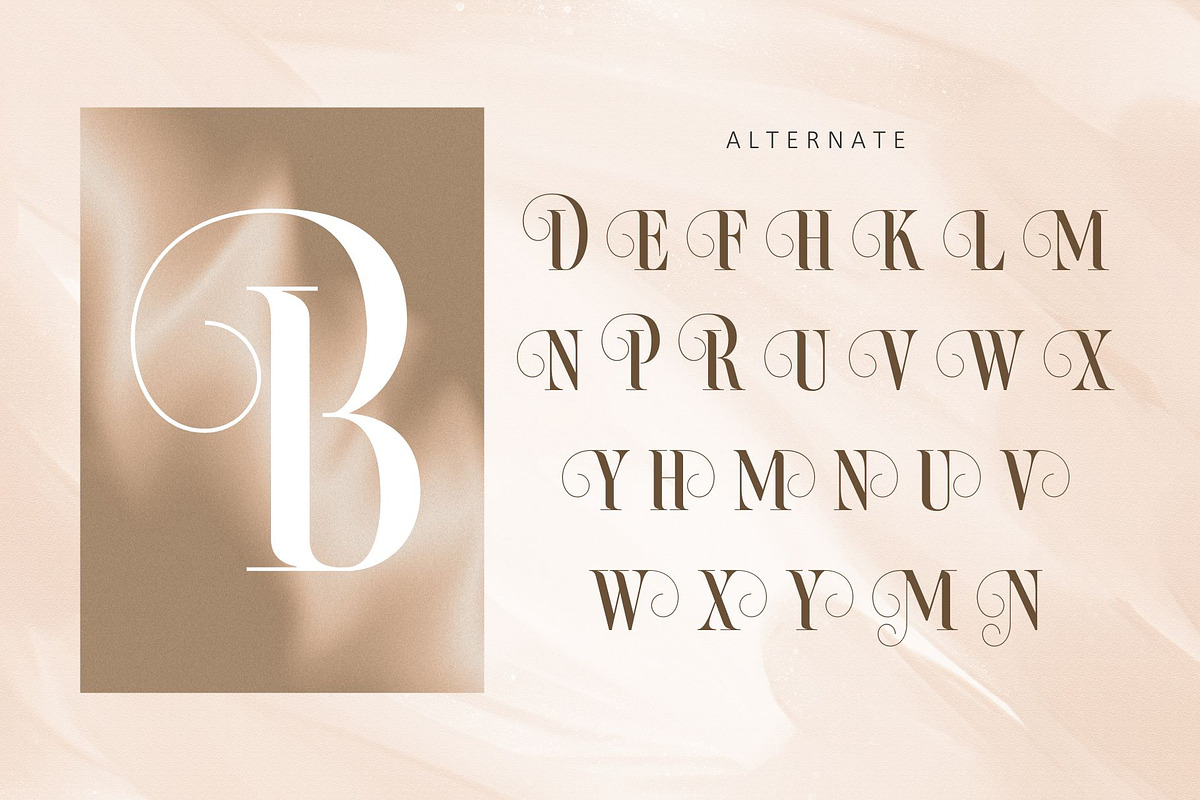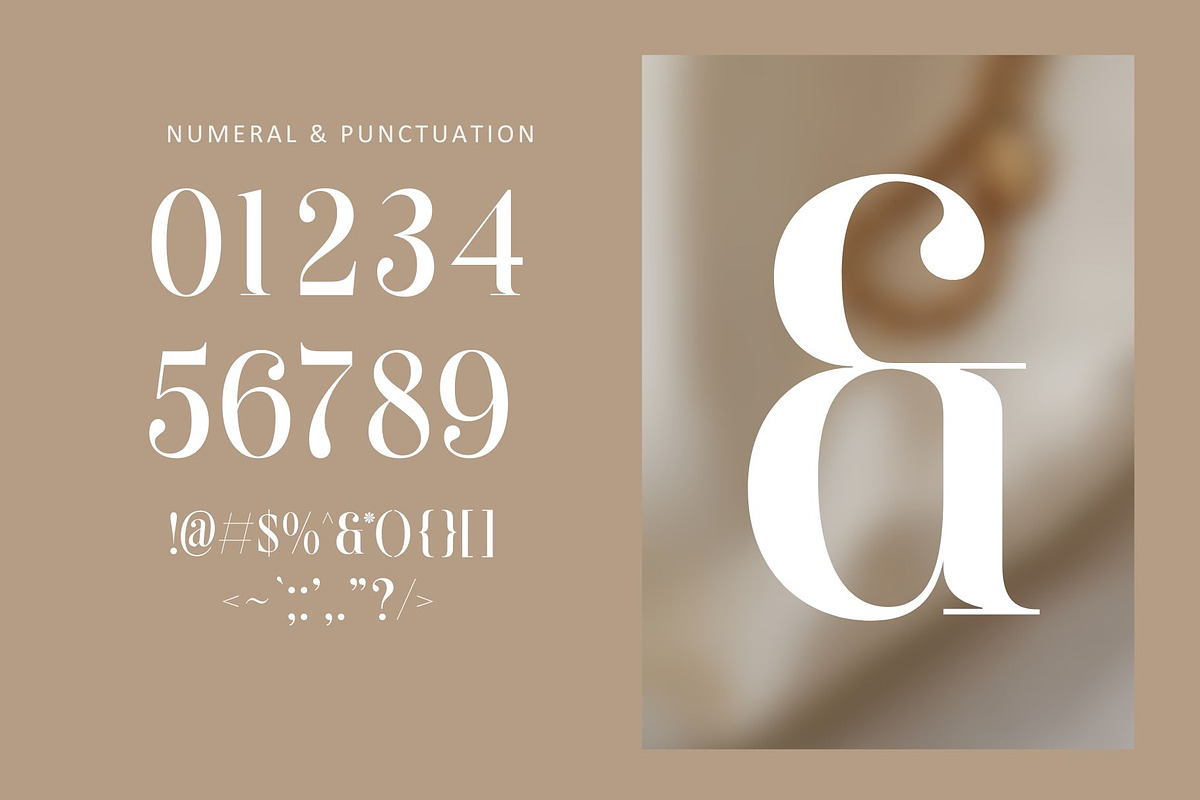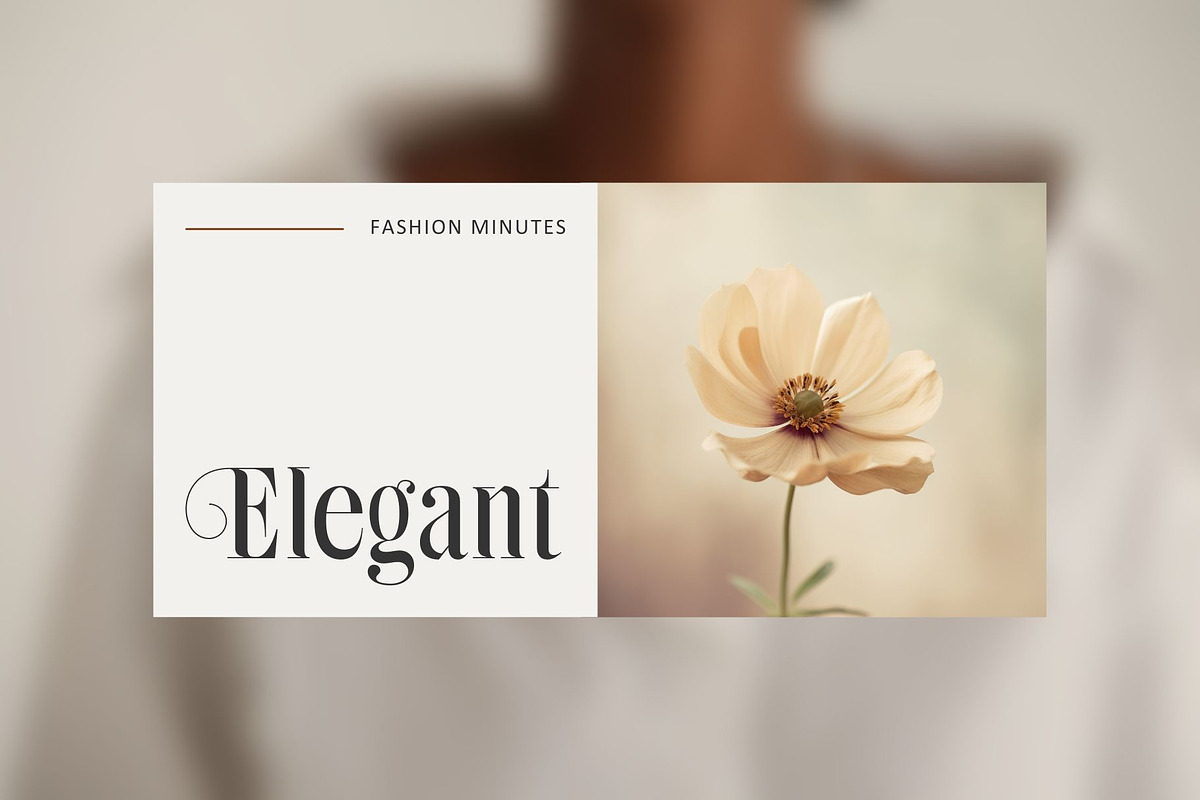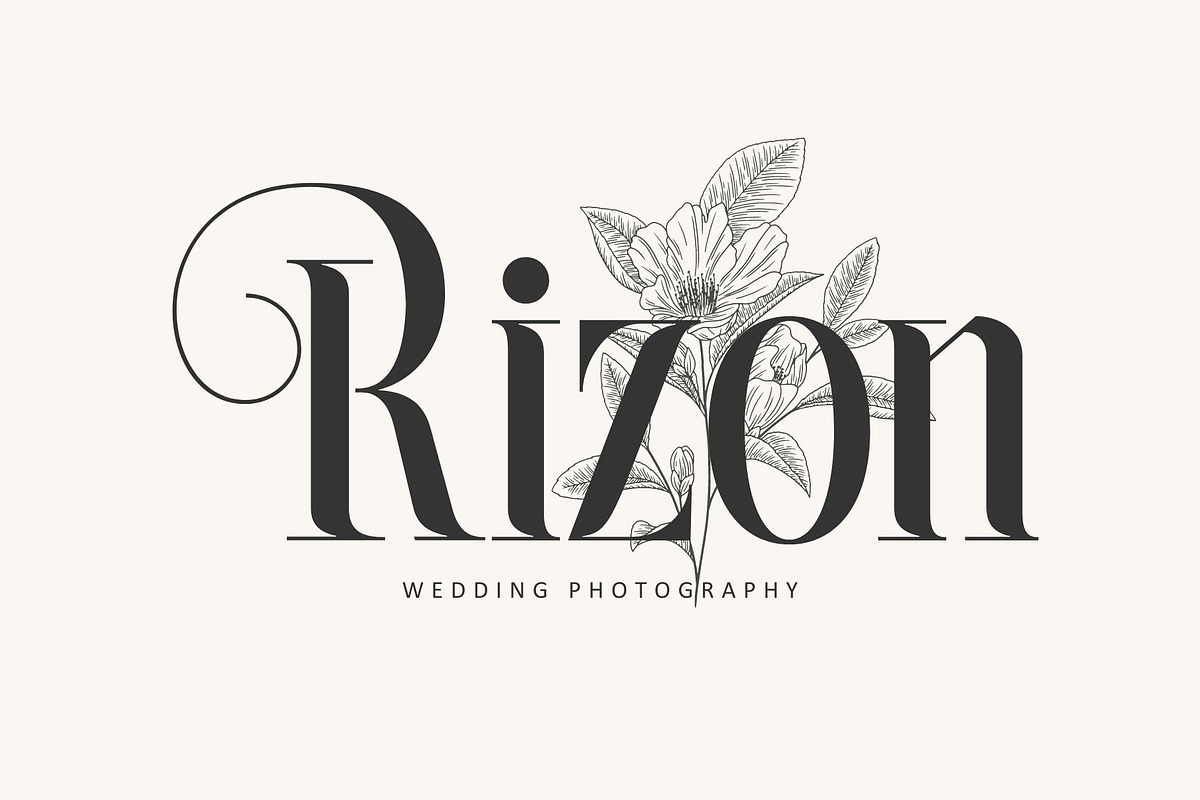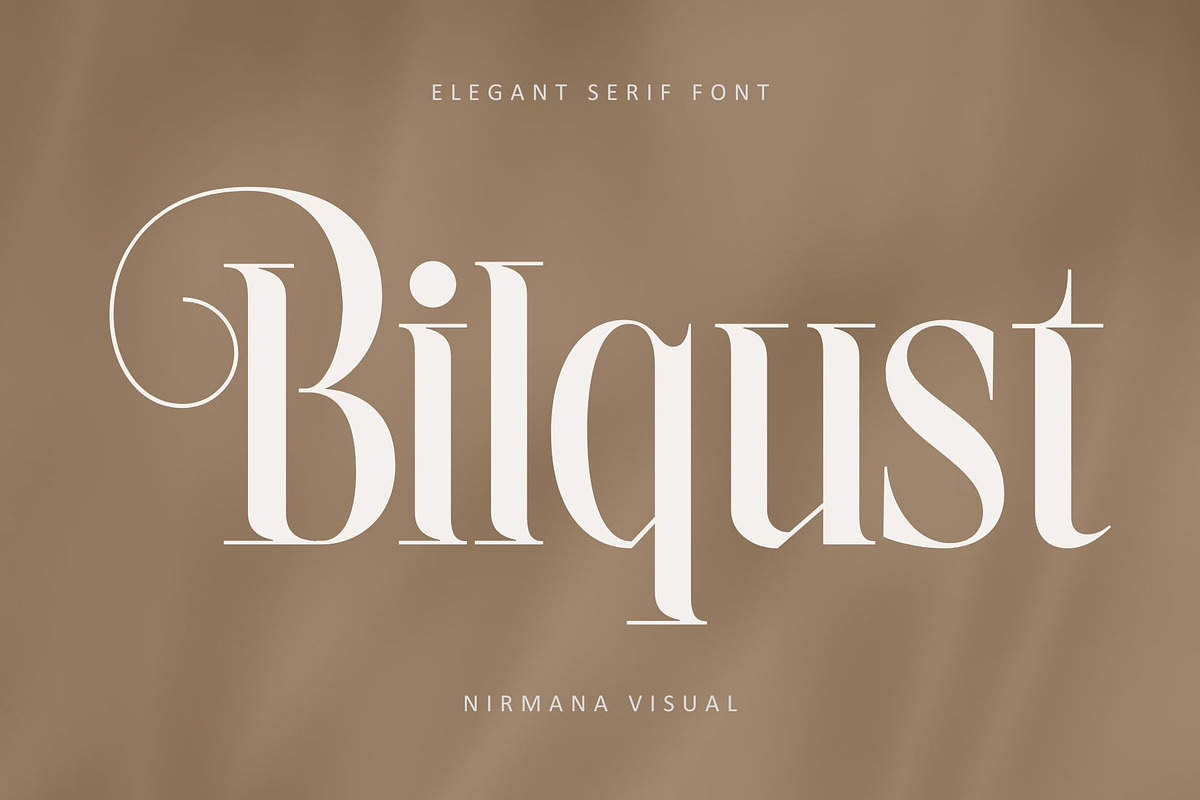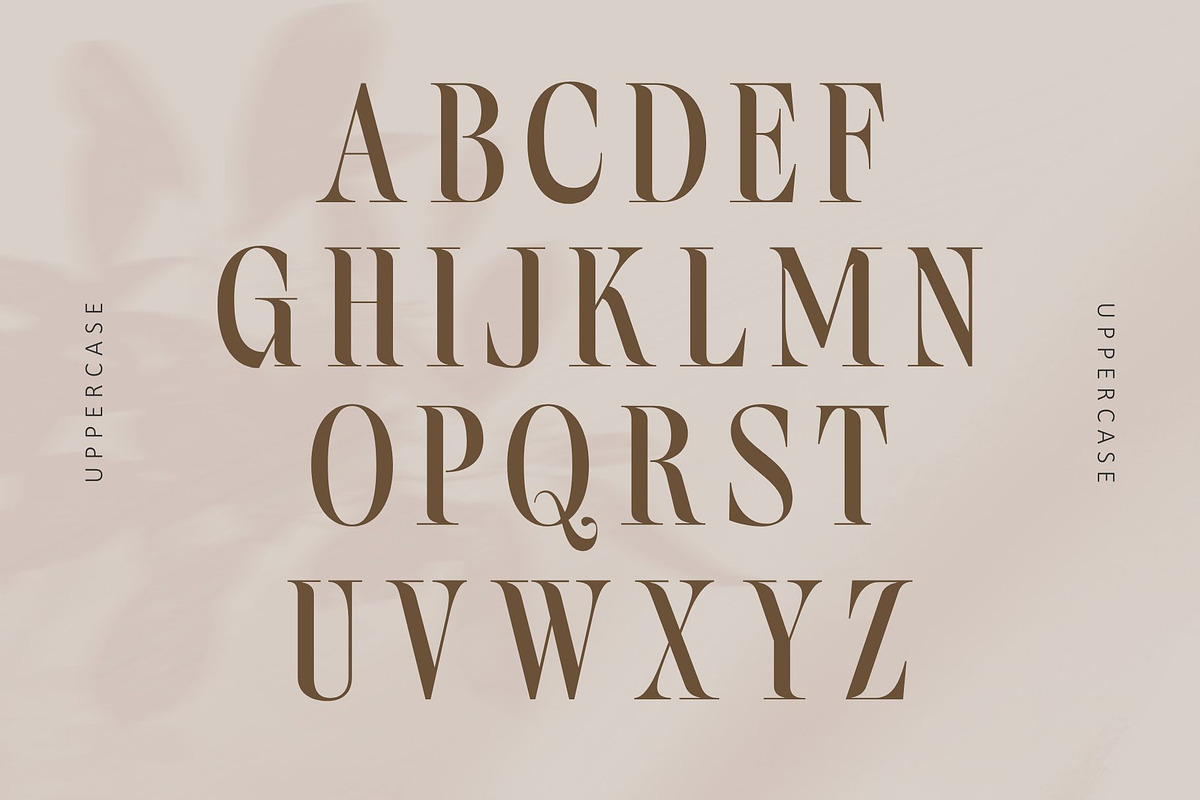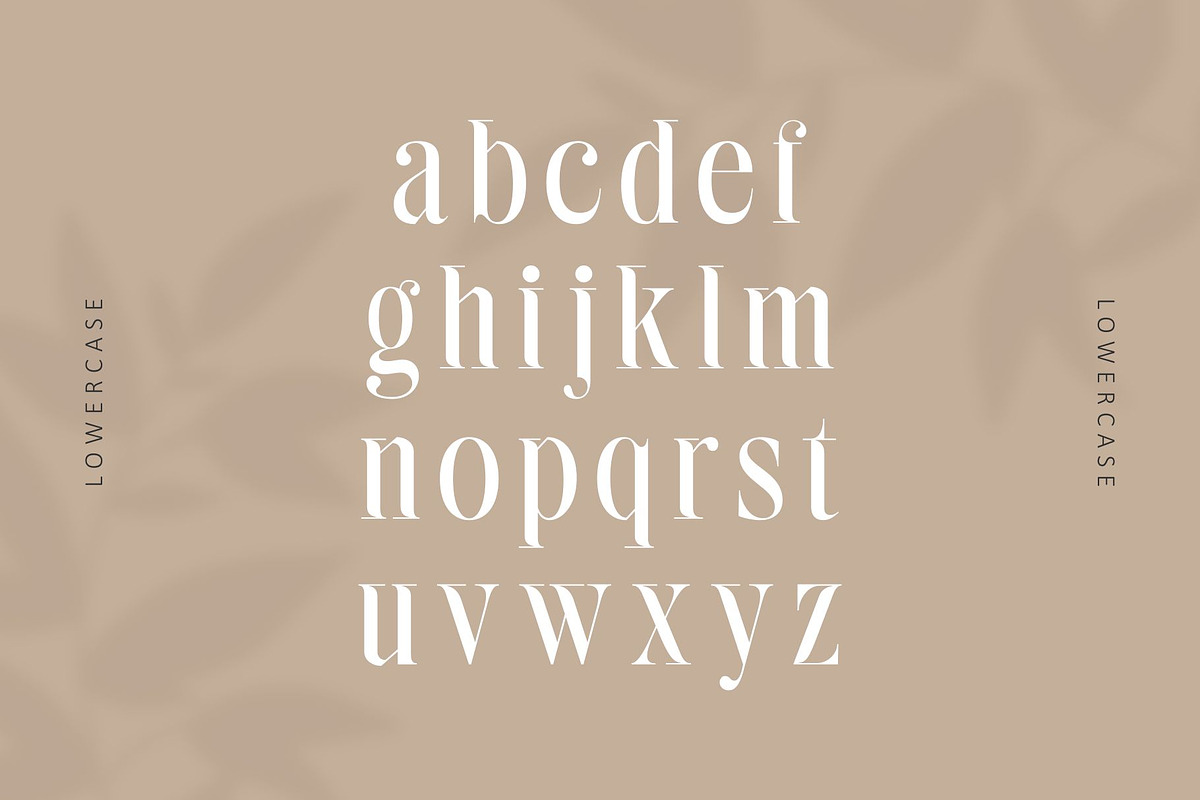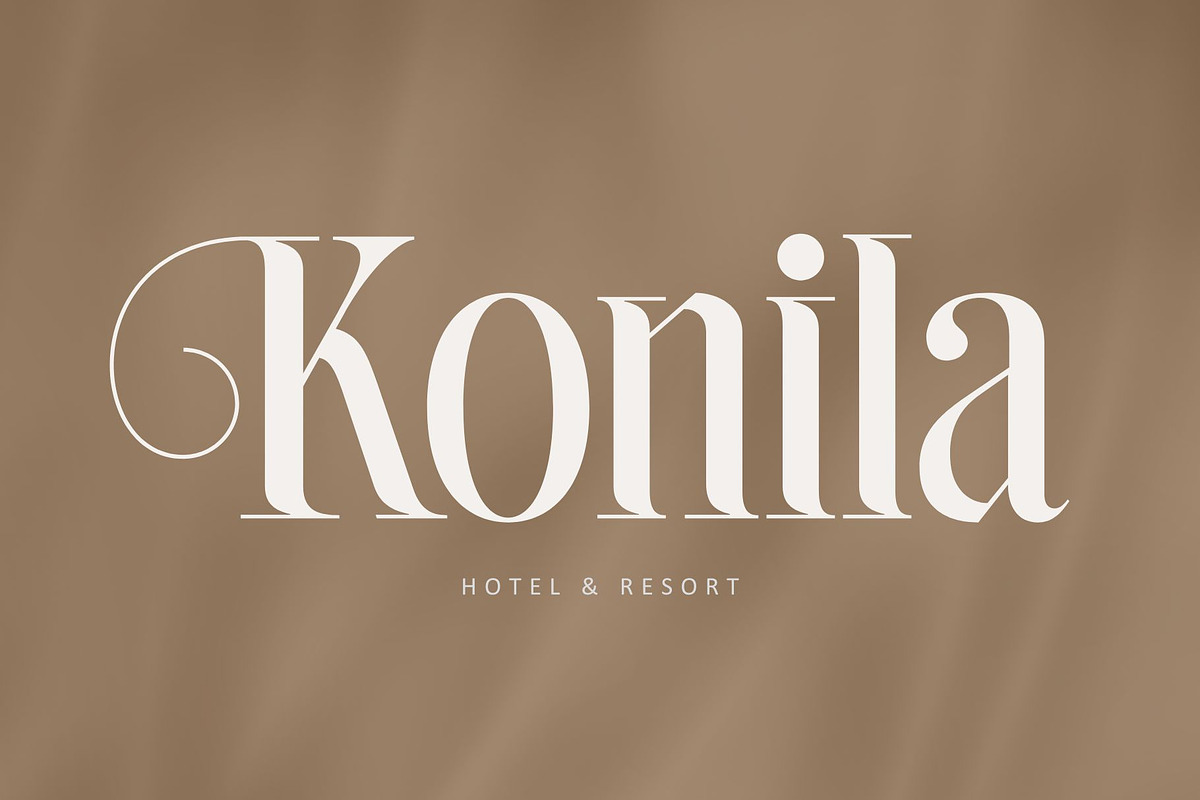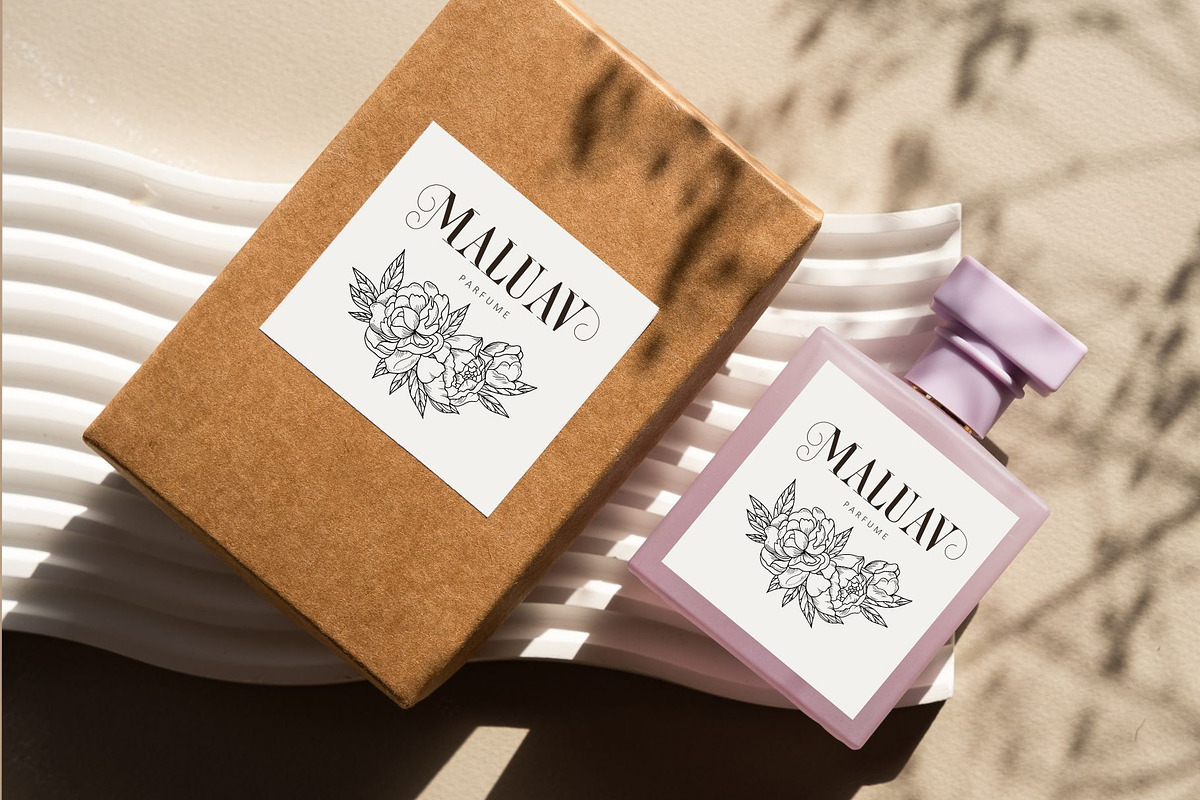
Bilqust - Elegant Serif
Bilqust - Elegant Serif Font
Bilqust Font offers beautiful typographic harmony for a diversity of design projects, including logos & branding, social media posts, advertisements & product designs.